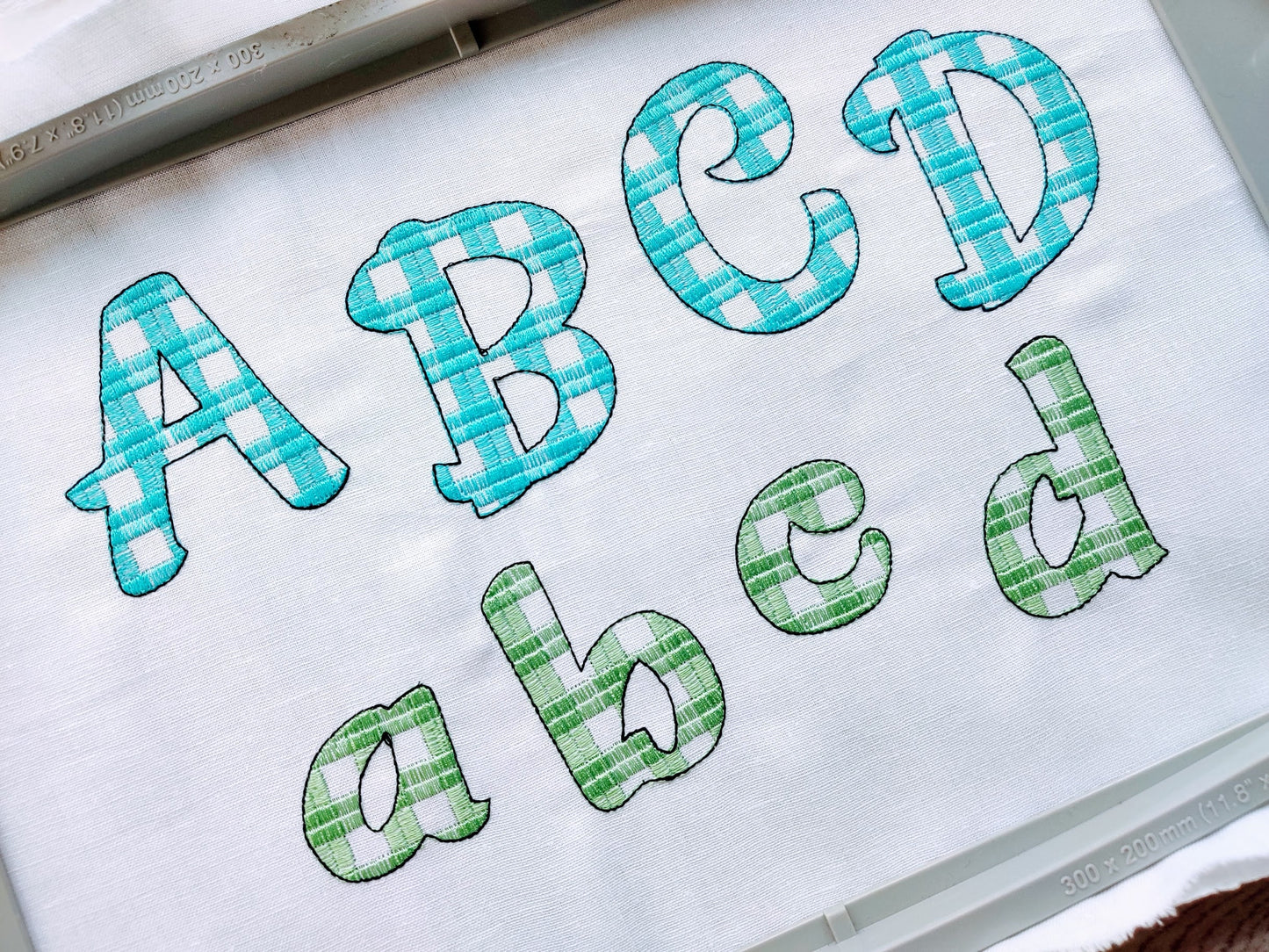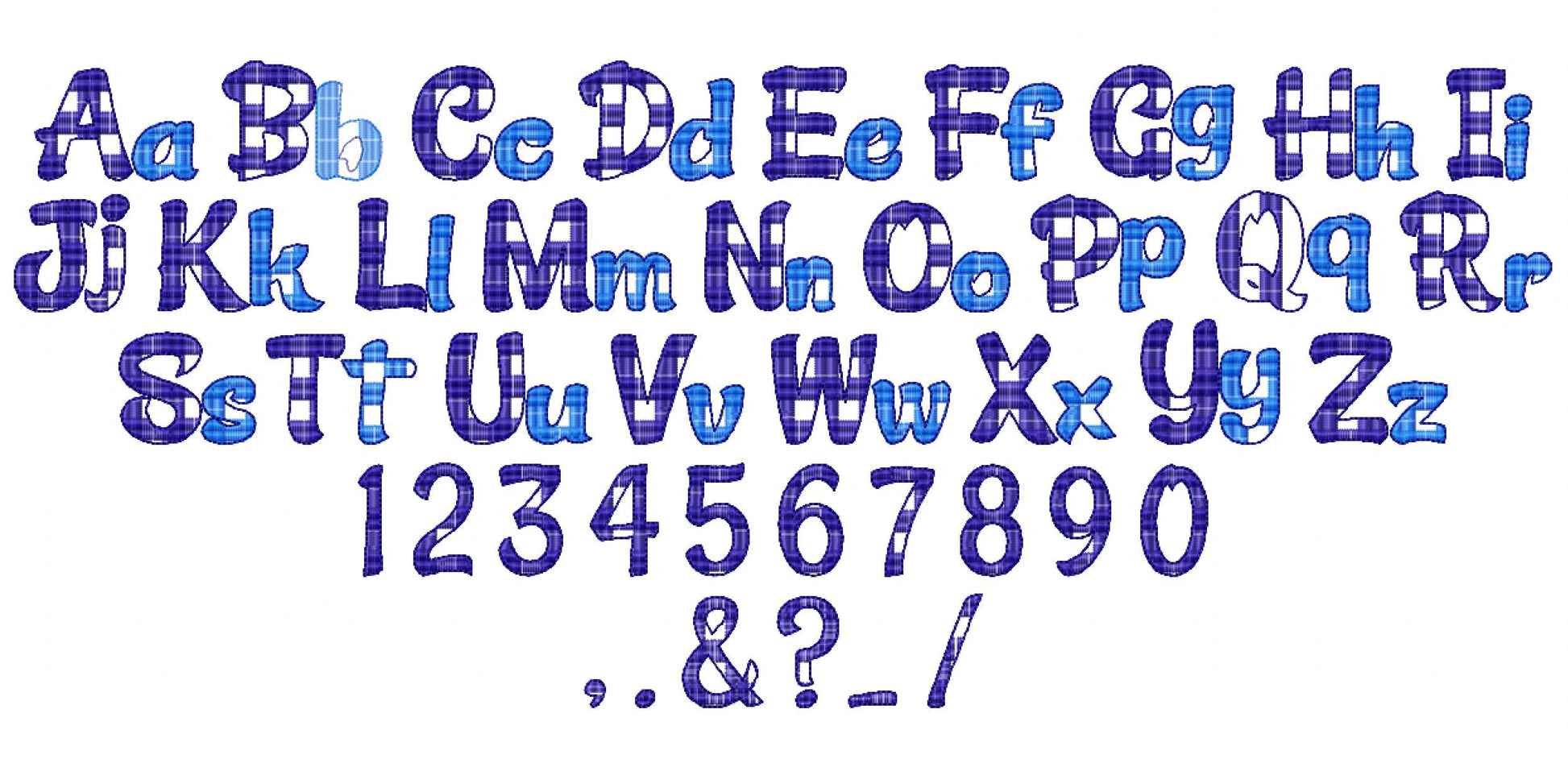
Plaid Gingham Font
Or click to open the linkA tartan gingham plaid alphabet in light sketch stitch. Cute for Christmas names and monograms on stockings, pillows, towels and shirts.
Letters A to Z, numbers 0 to 9 and a few symbols. Letters come in nine sizes: 1.5, 2, 2.5, 3, 3.5, 4, 4.5, 5 and 6 inches. Gingham lines are stitched inside each letter and the fabric shows through, like lace.
- Letters A to Z, numbers 0 to 9 and symbols
- Gingham plaid light stitch
- 9 sizes, 1.5 to 6 in